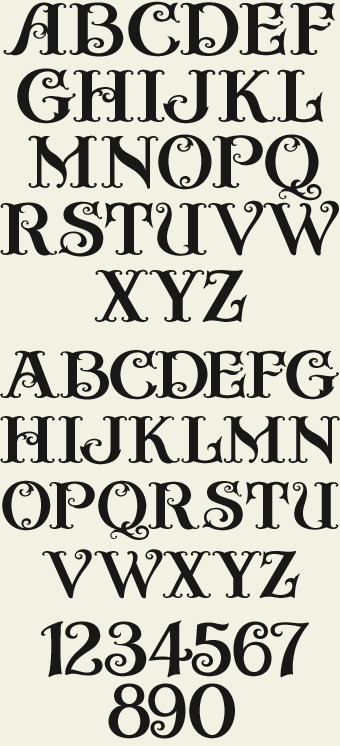
LHF Crystal
by
Jerry Berg
Jerry Berg's first font manages to capture the spirit of the late 1800's era, yet incorporates some unusual elements not seen before.